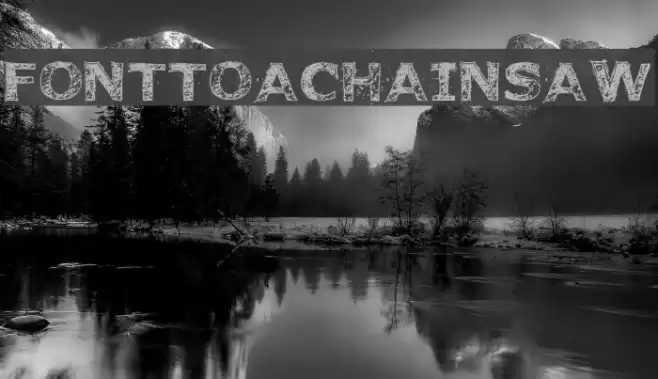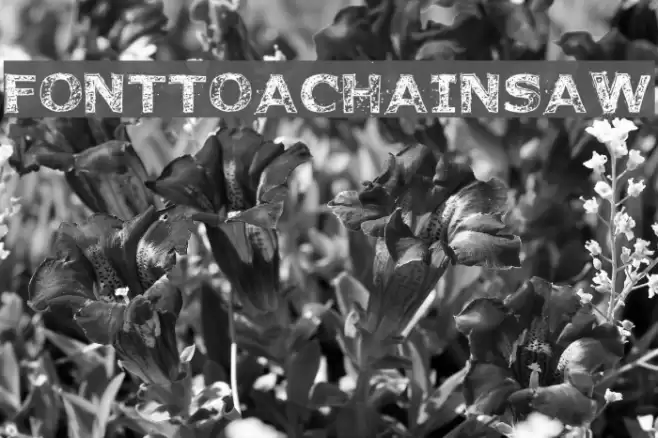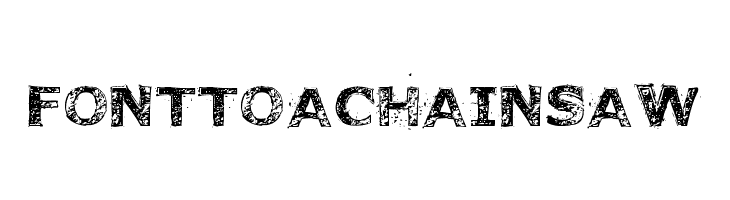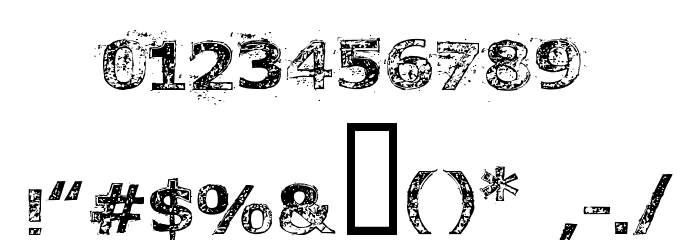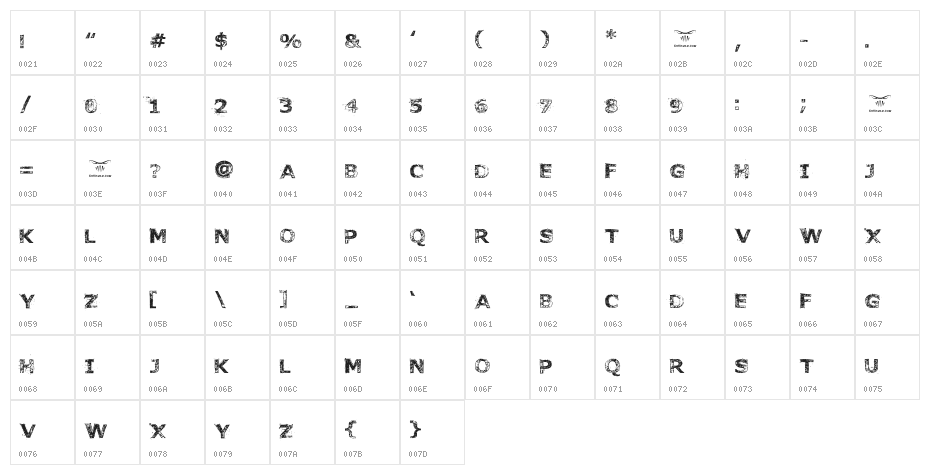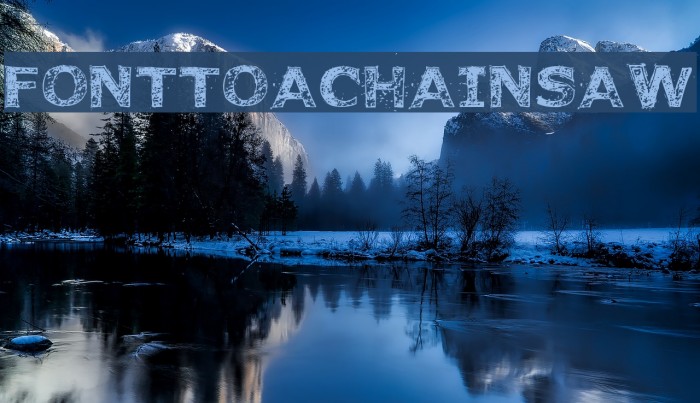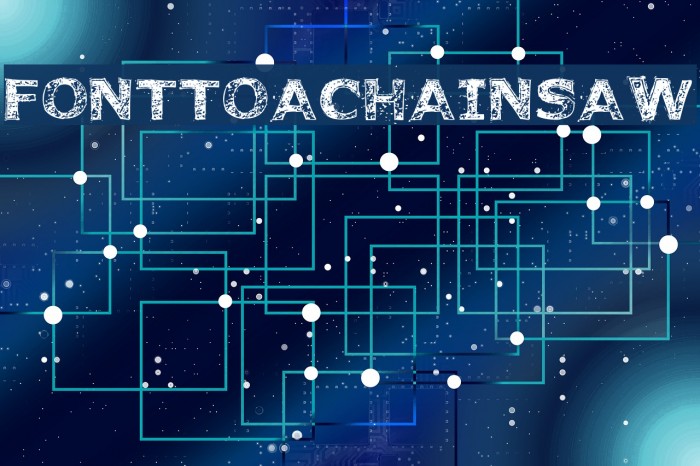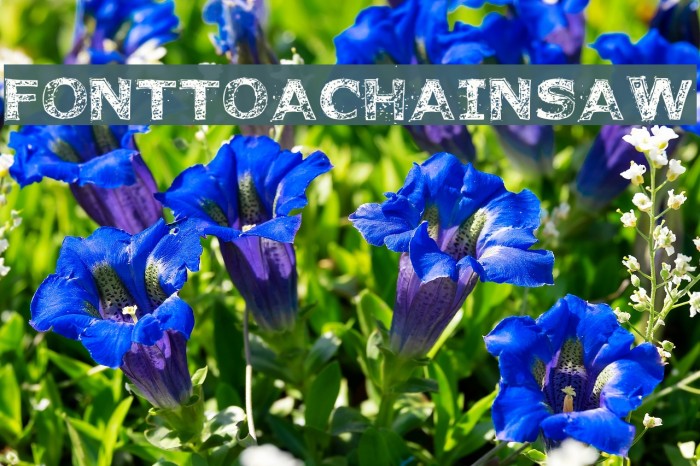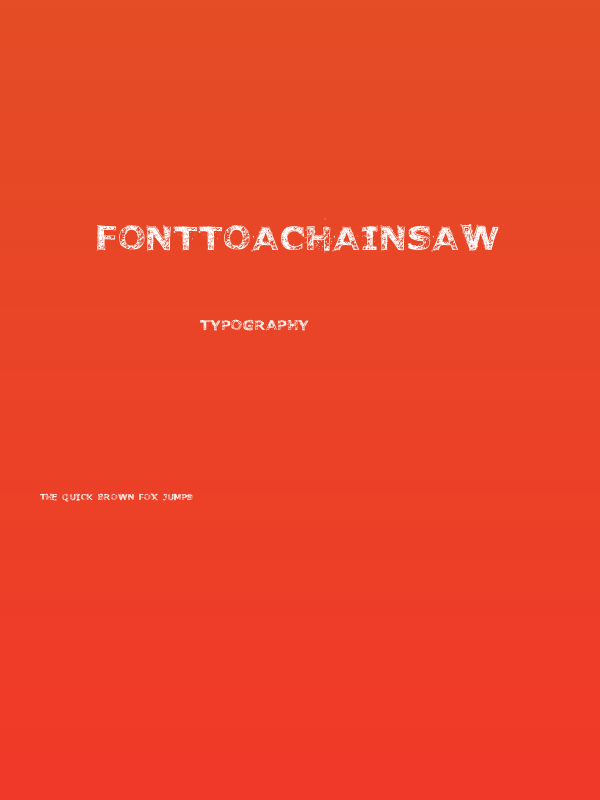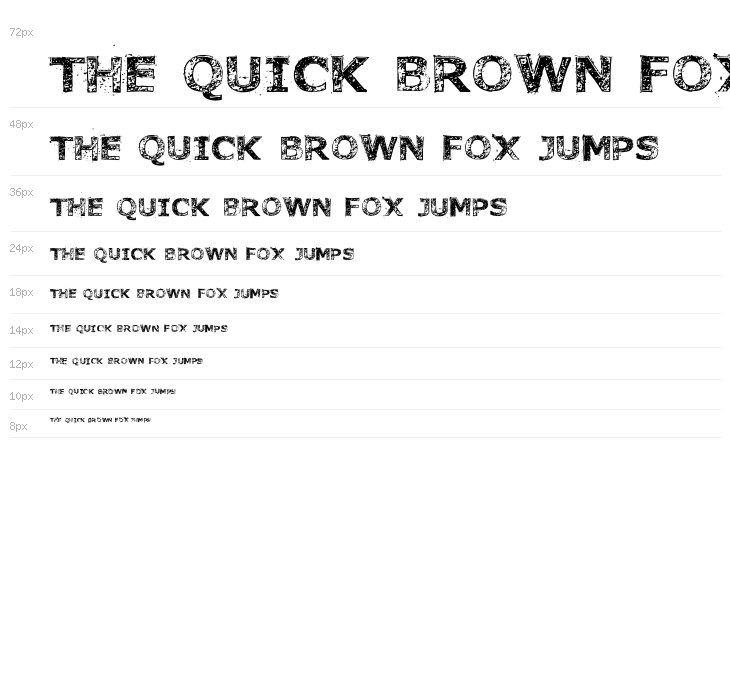
FonttoaChainsaw Font
FonttoaChainsaw Description
This font features a rugged, distressed appearance, reminiscent of worn-out machinery or industrial decay. The characters are bold and impactful, with a textured, grunge effect that gives them a raw, edgy feel. The uppercase letters are uniform in height, while the numbers and special characters maintain the same distressed style, adding to the overall cohesive look. This font's unique aesthetic makes it stand out, perfect for projects that require a gritty, urban vibe.
A bold, distressed font with a rugged, industrial look from Uncategorized fonts.